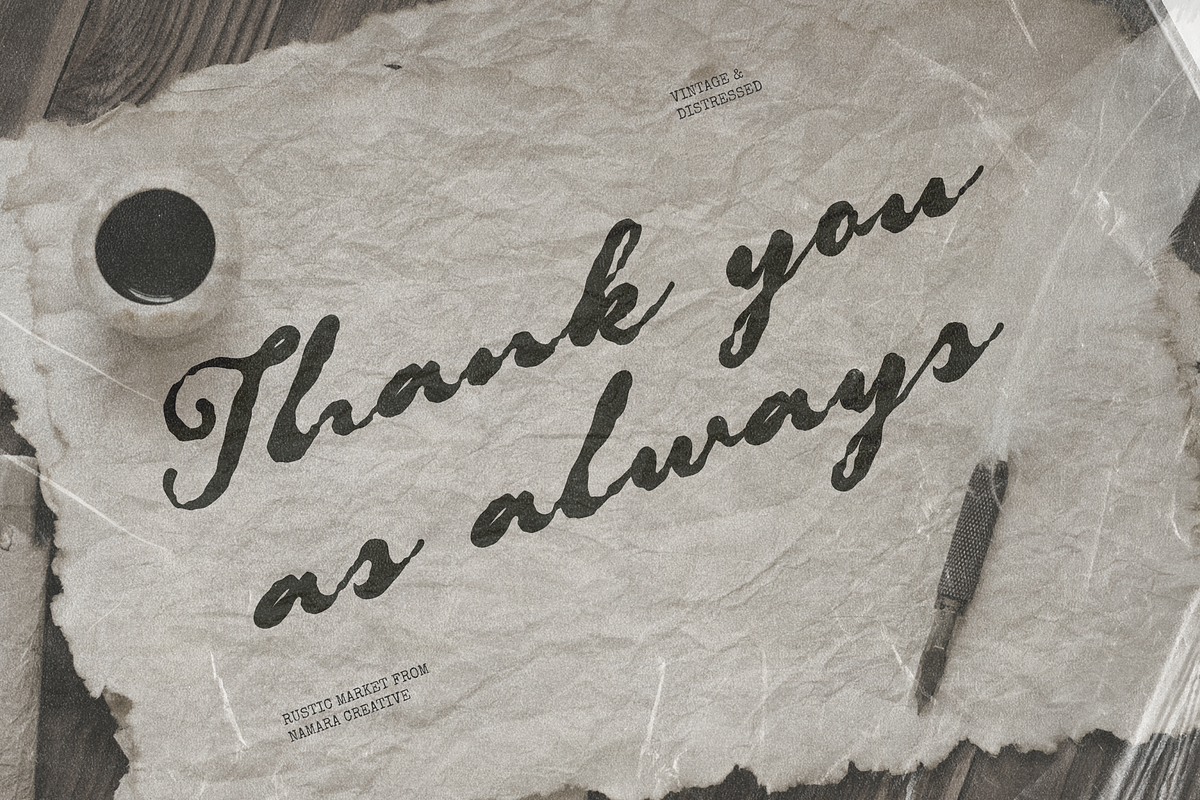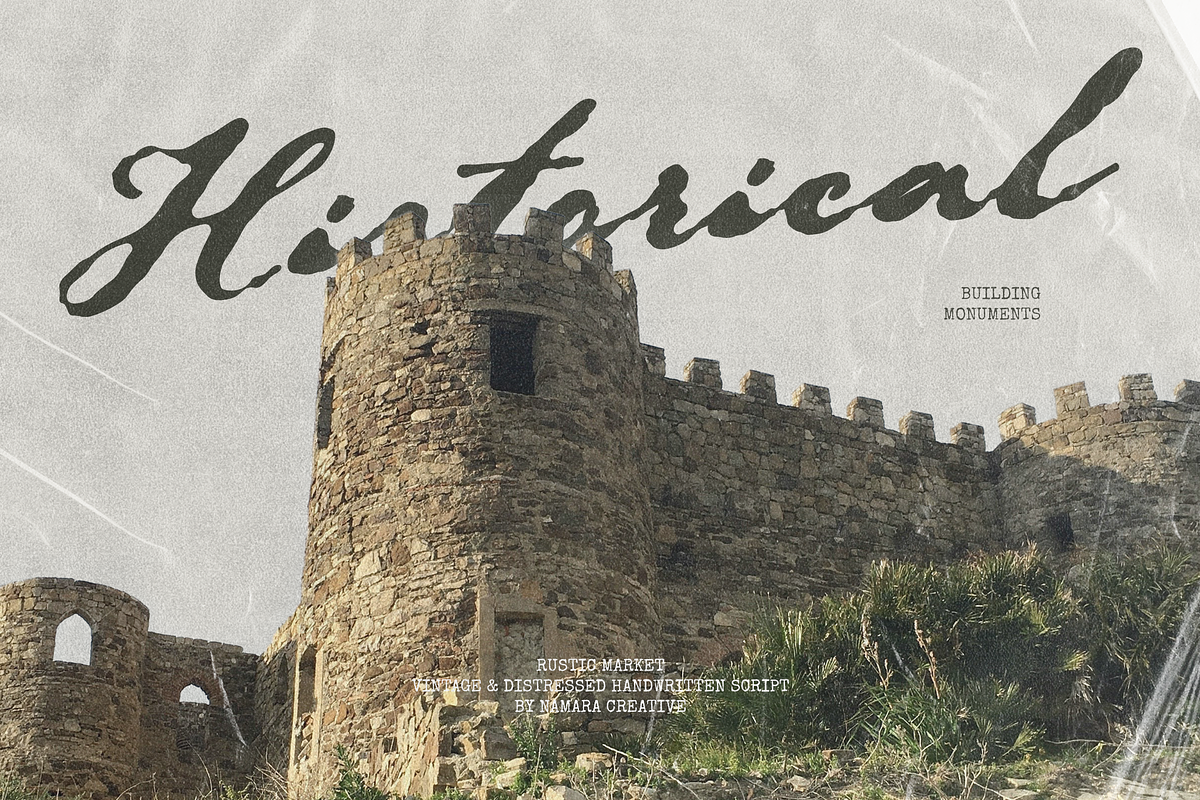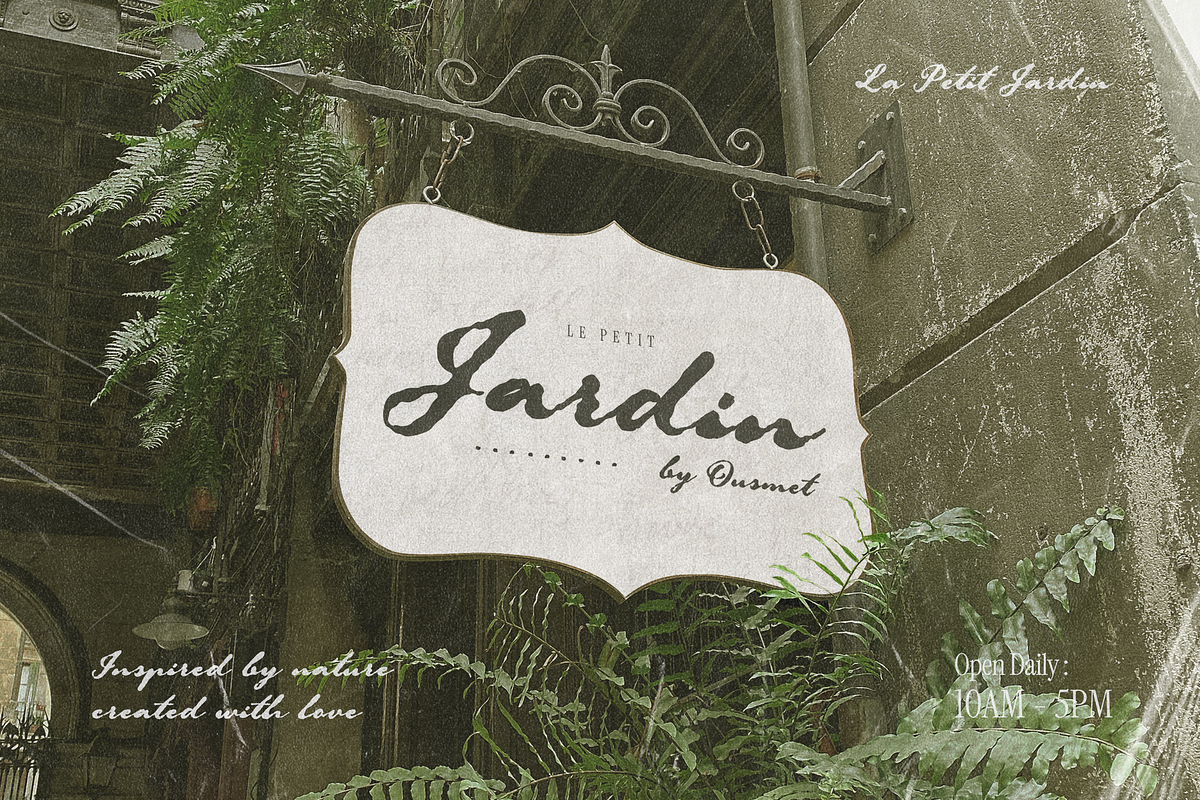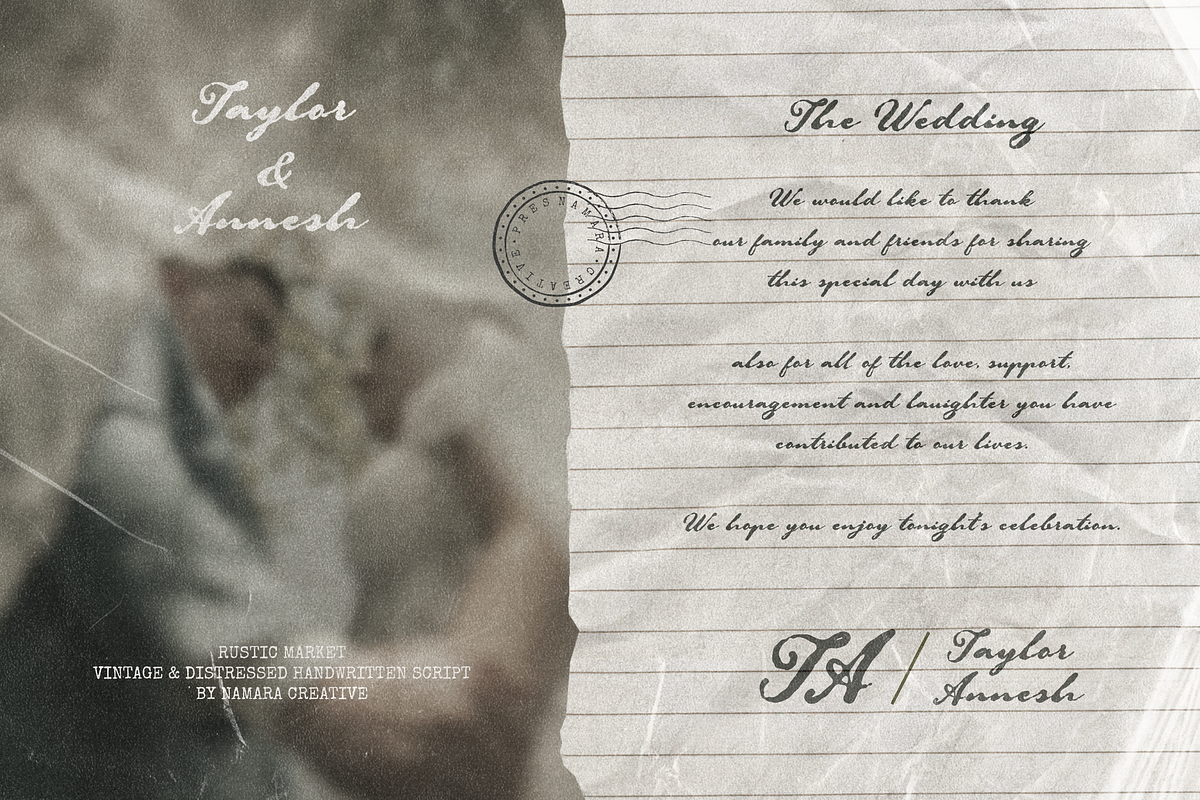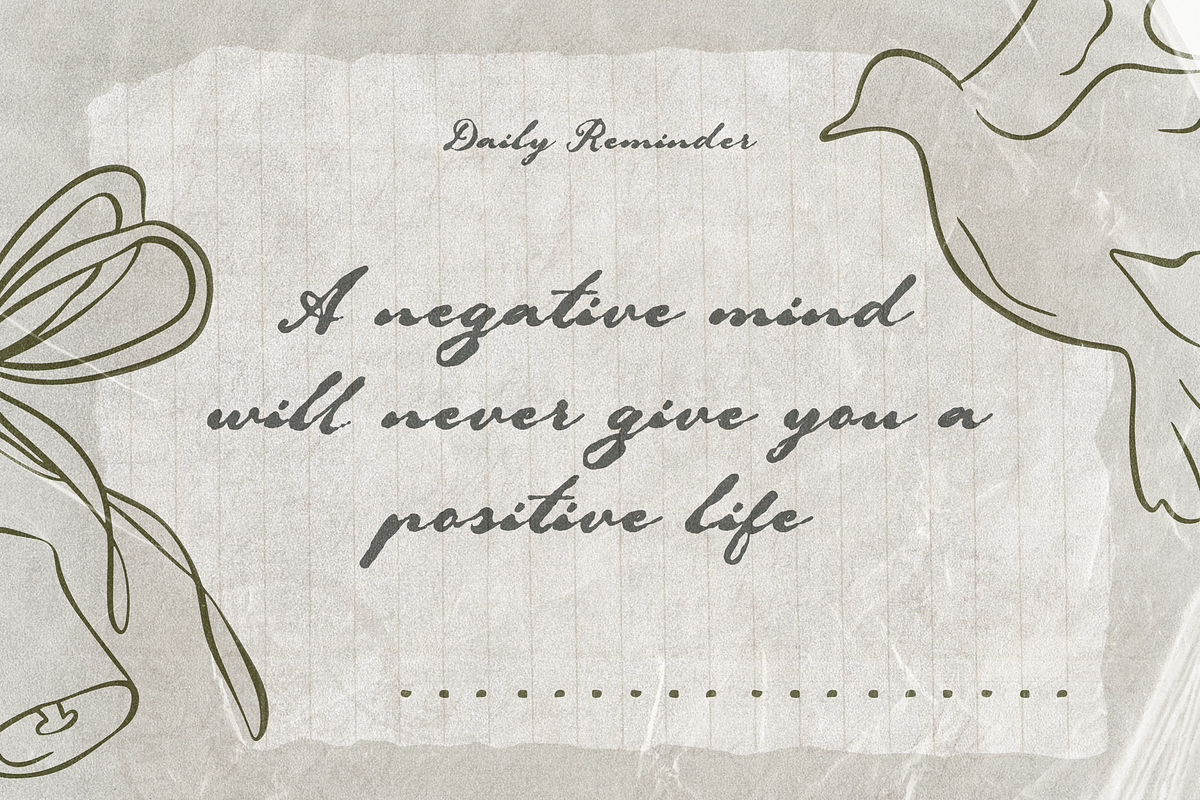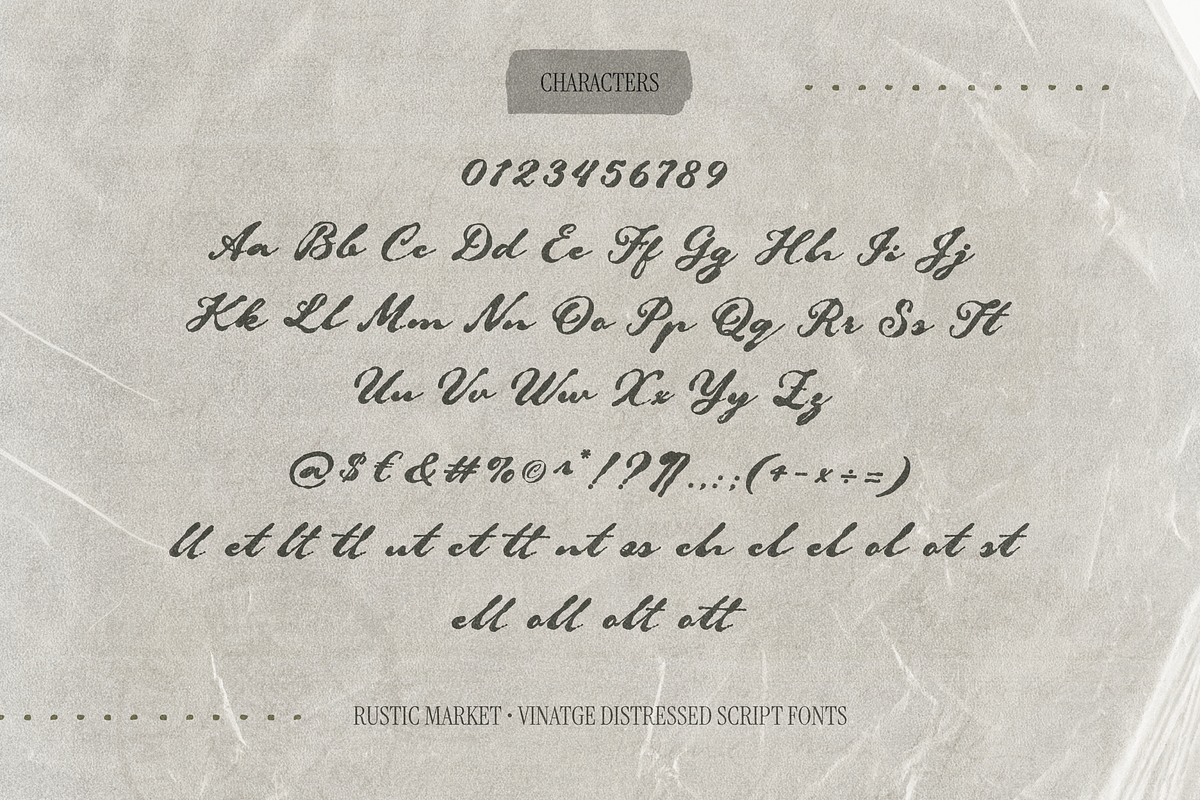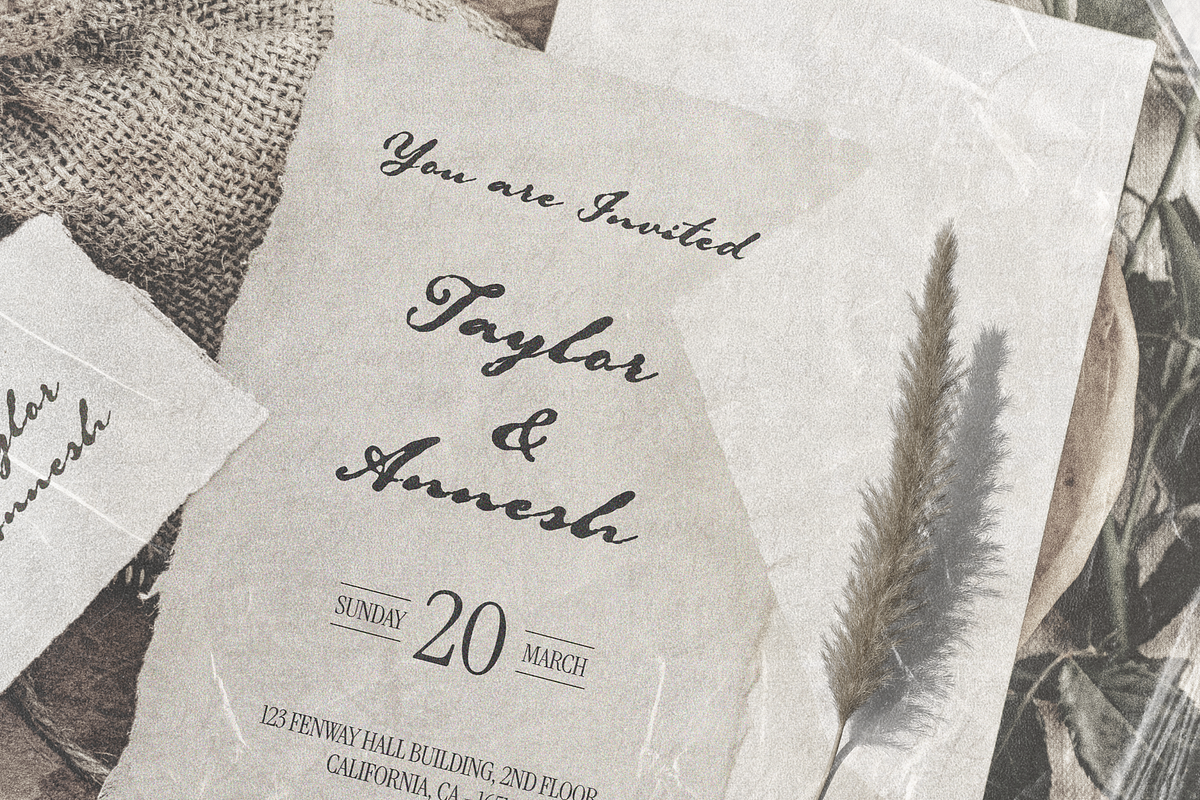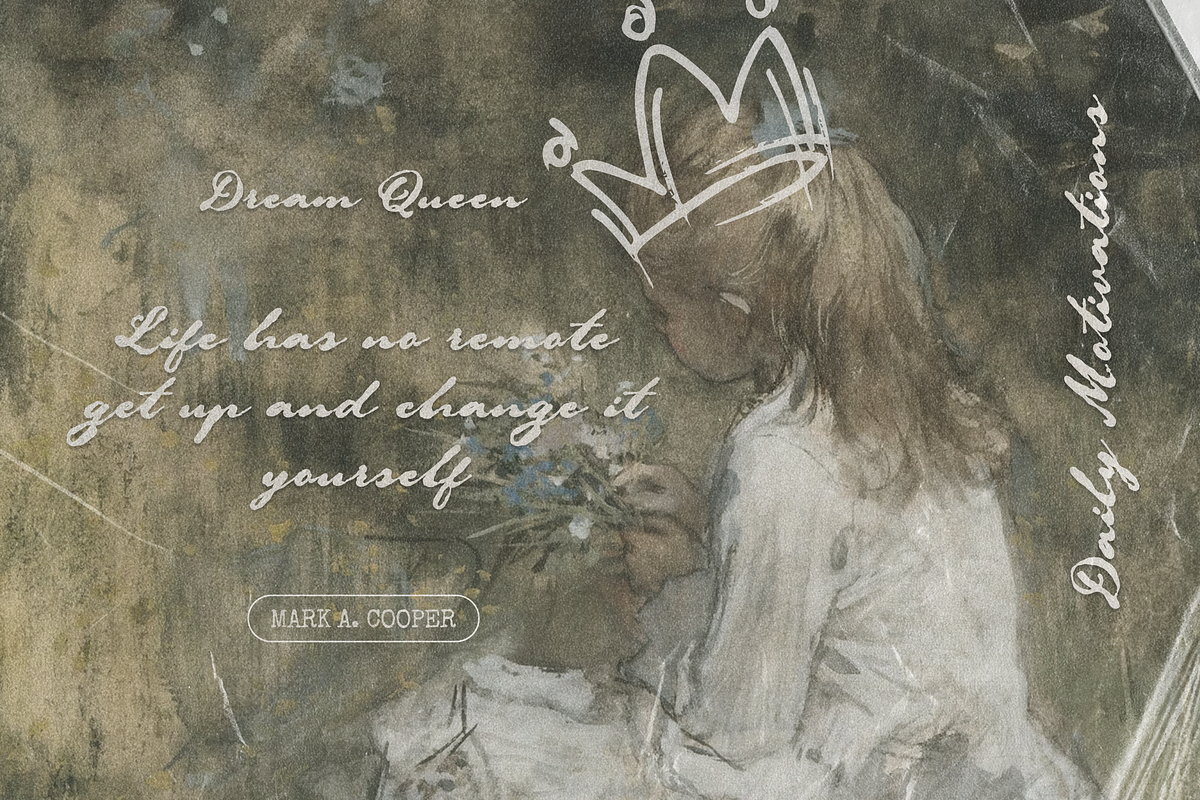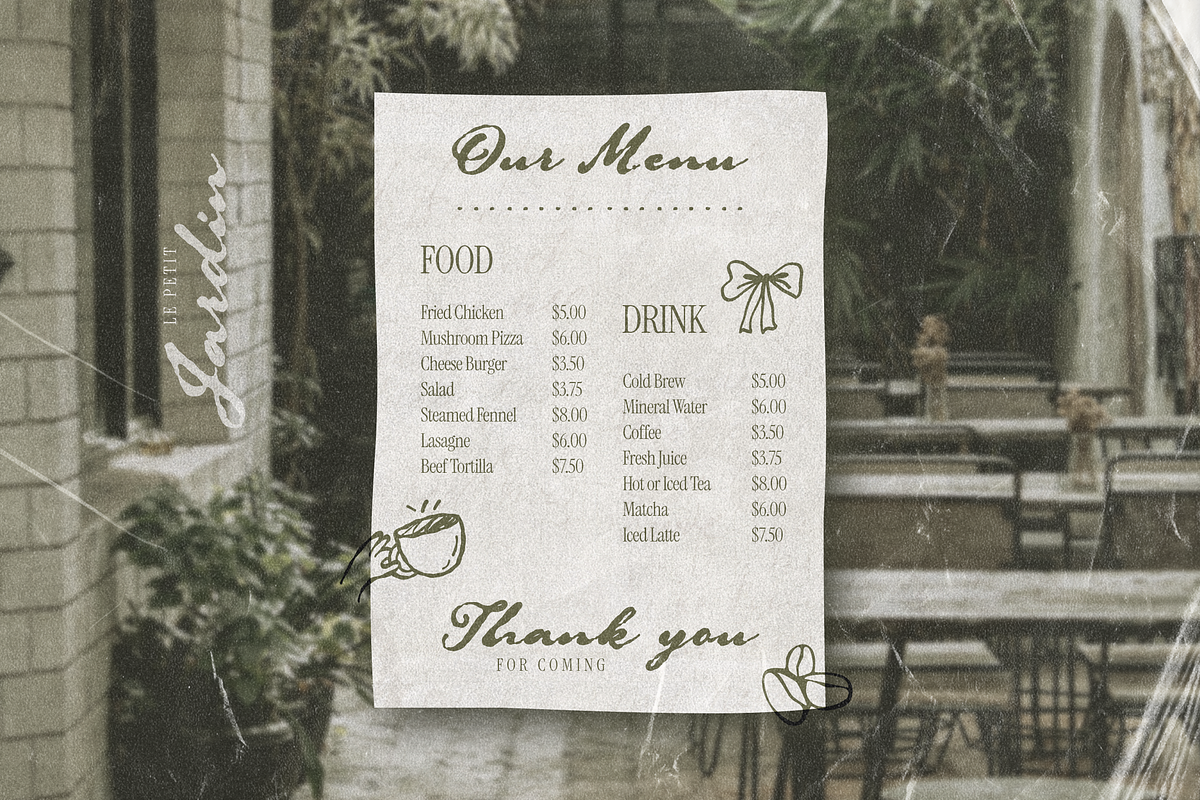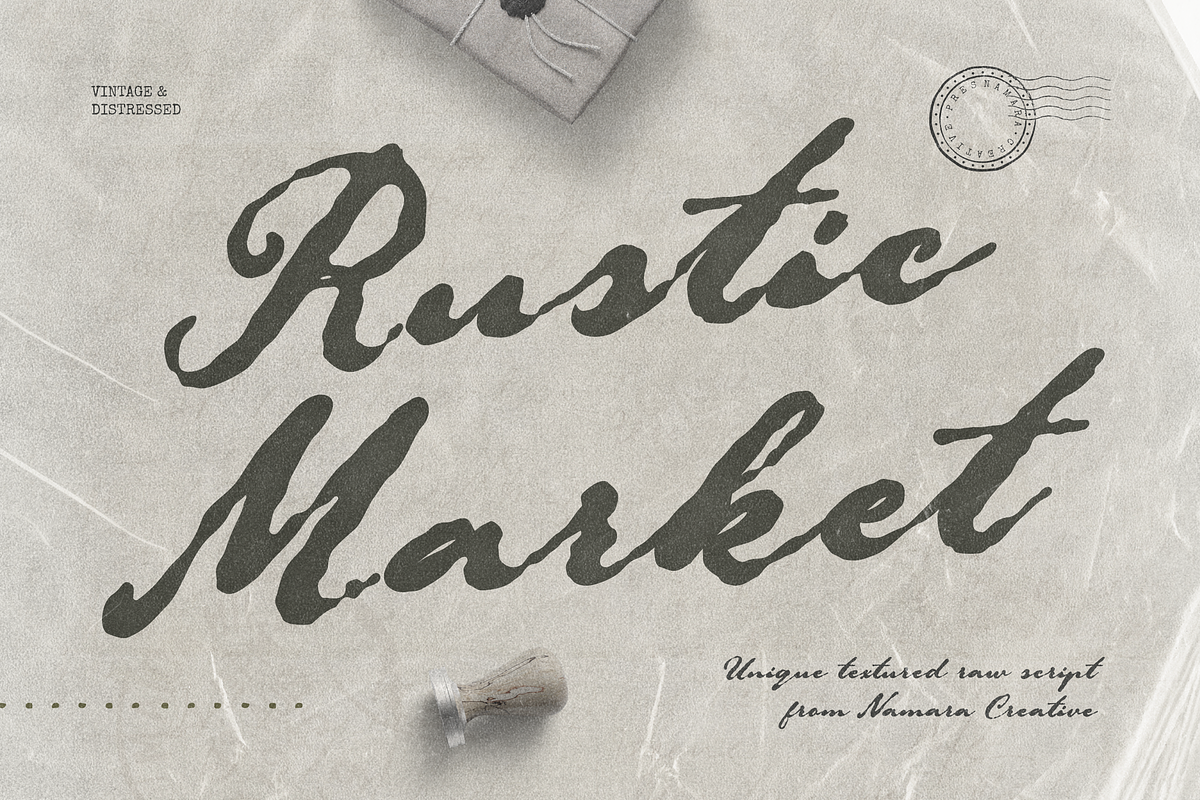
Rustic Market Raw Handwritten Script
Rustic Market – Raw Textured Script Fonts
Rustic Market stands as a bold celebration of the "imperfect human touch." Crafted with a meticulous eye for organic detail by the artisans at Namara Creative Studio, this "unique textured raw script" brings the warmth and soul of a countryside market stall directly to your design canvas.
Rustic Market is more than just a font; it is a "storytelling tool" designed for brands that value authenticity, craftsmanship, and a "Significant Impact" through simple, powerful design.
Rustic Market balances a "bold presence" with an "approachable grace."
Comprehensive Character Set : Includes a full suite of Uppercase and Lowercase characters, along with Numbers and essential Punctuation.
OpenType Features & Multilingual Support : Natural rhythm of true handwriting, with engineered for international reach.
Rustic Market is more than an aesthetic accessory, it is a high-performance commercial asset that sits at the center of current typographic trends. By leveraging the philosophy of significant impact through simplicity.